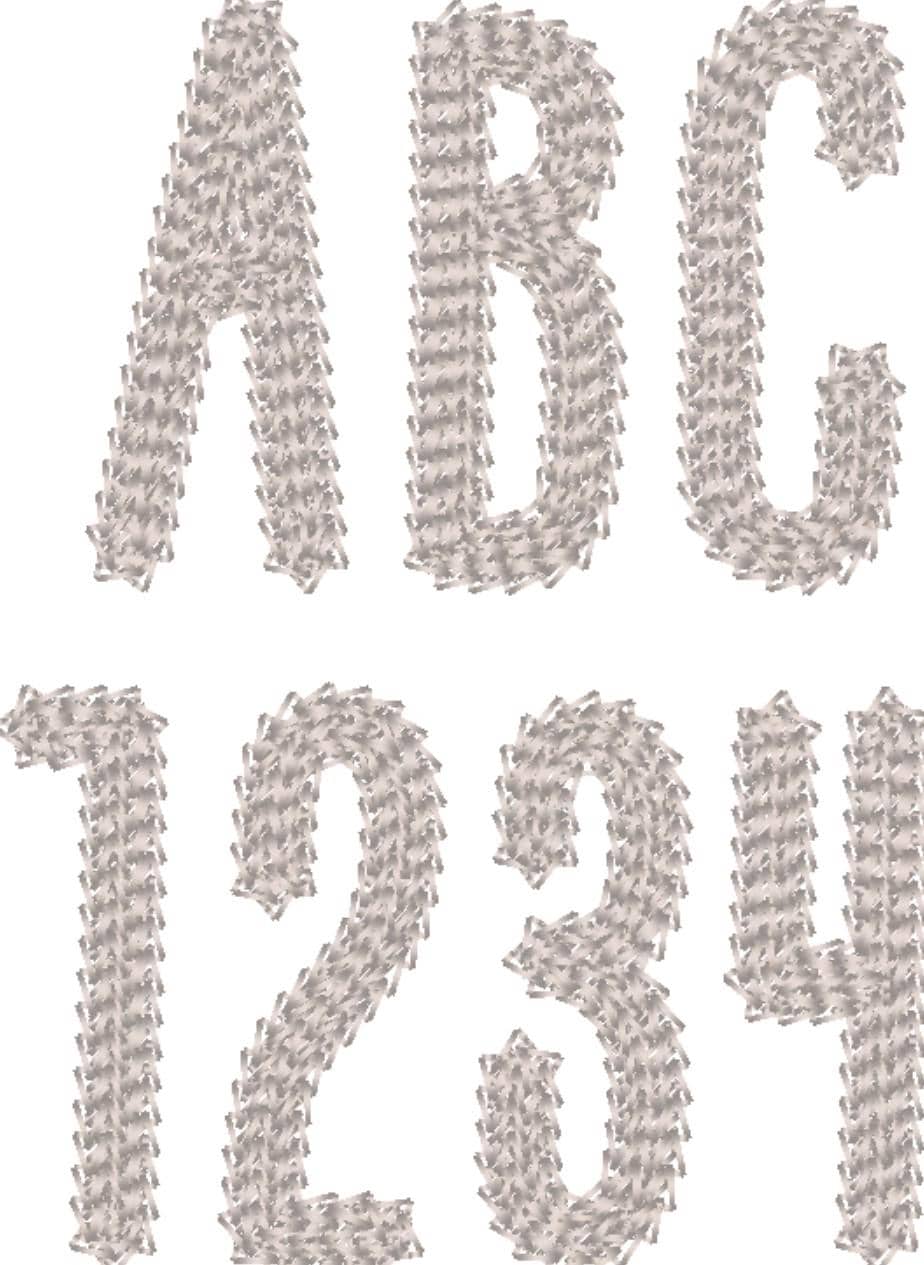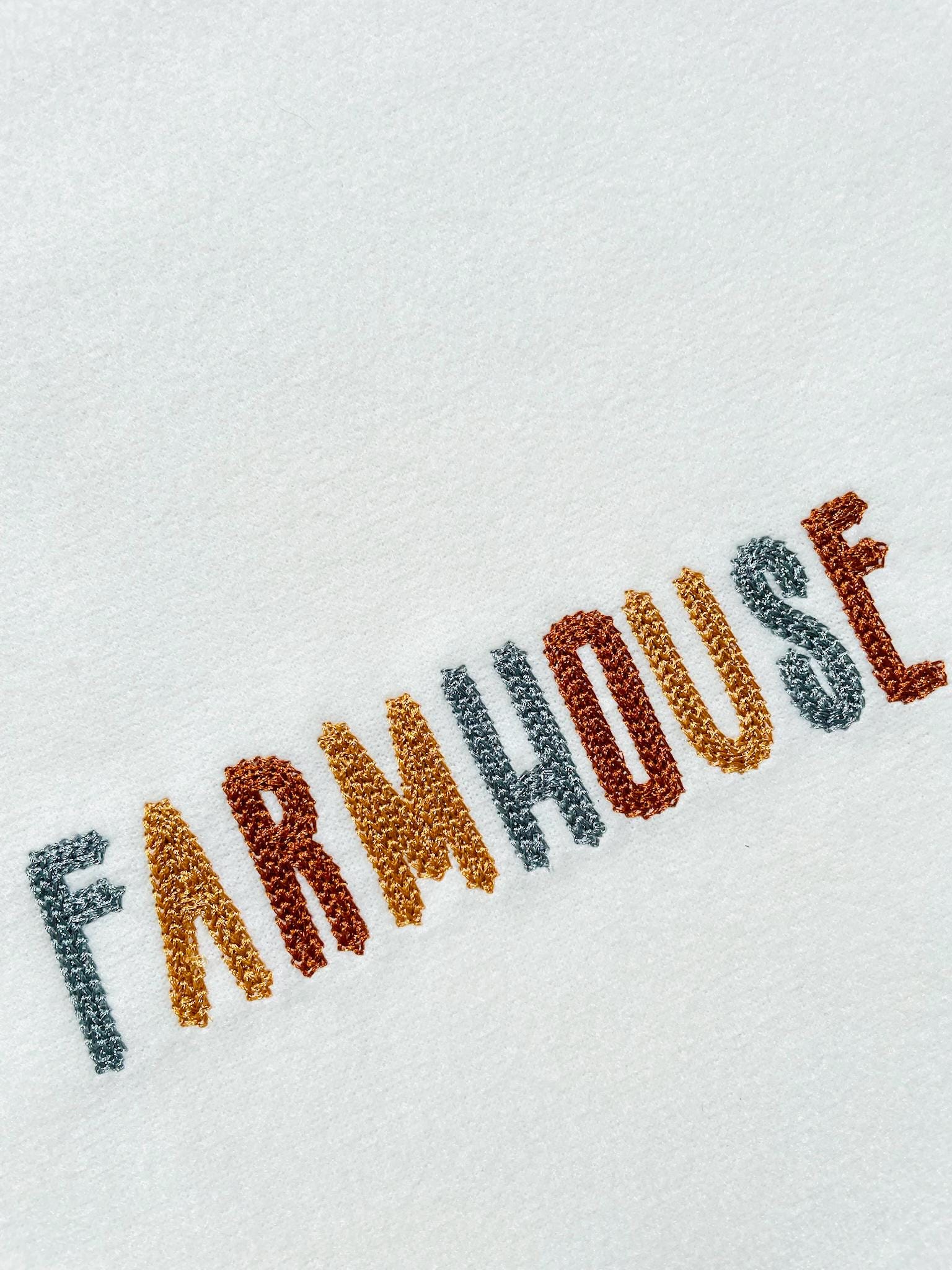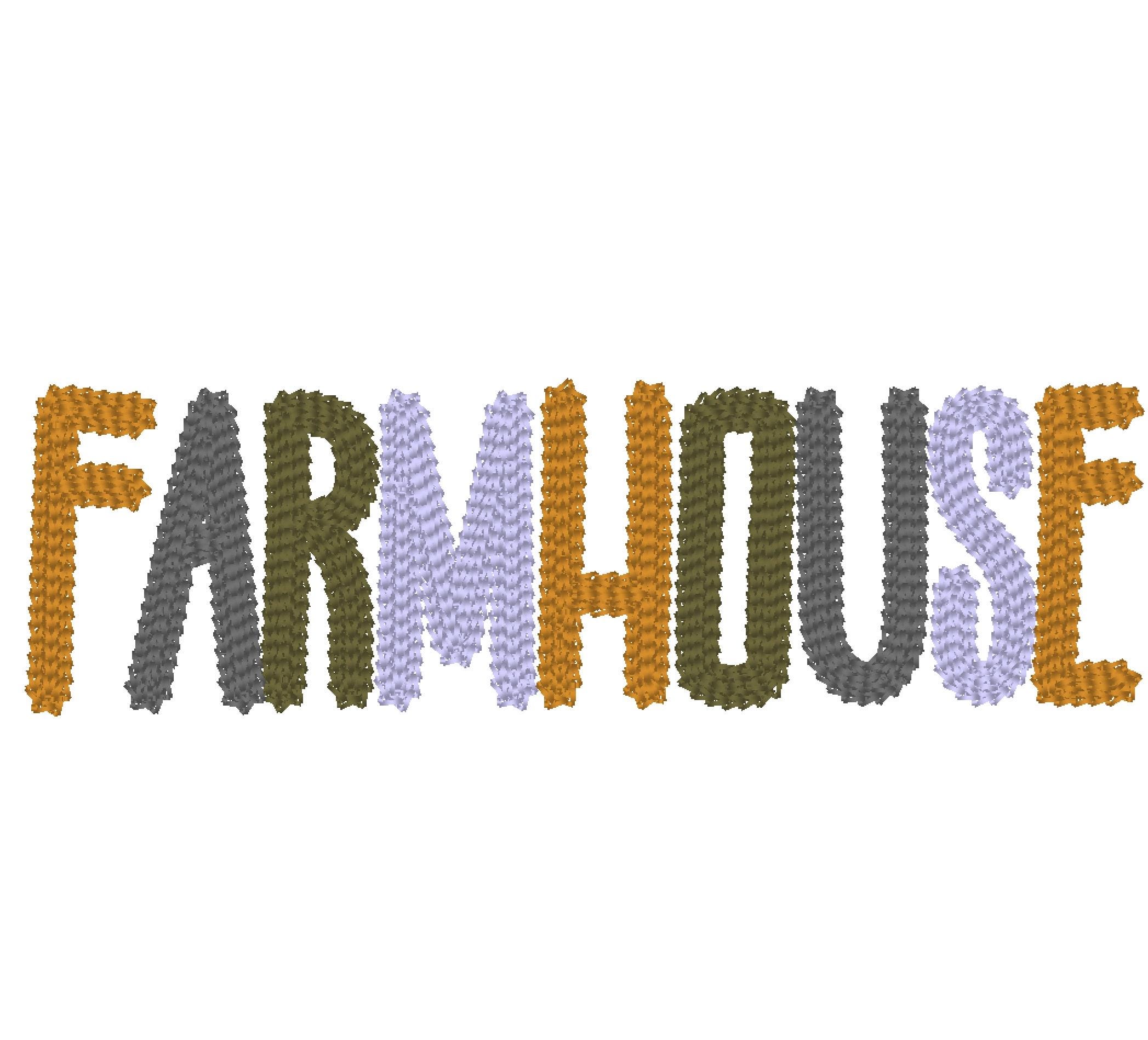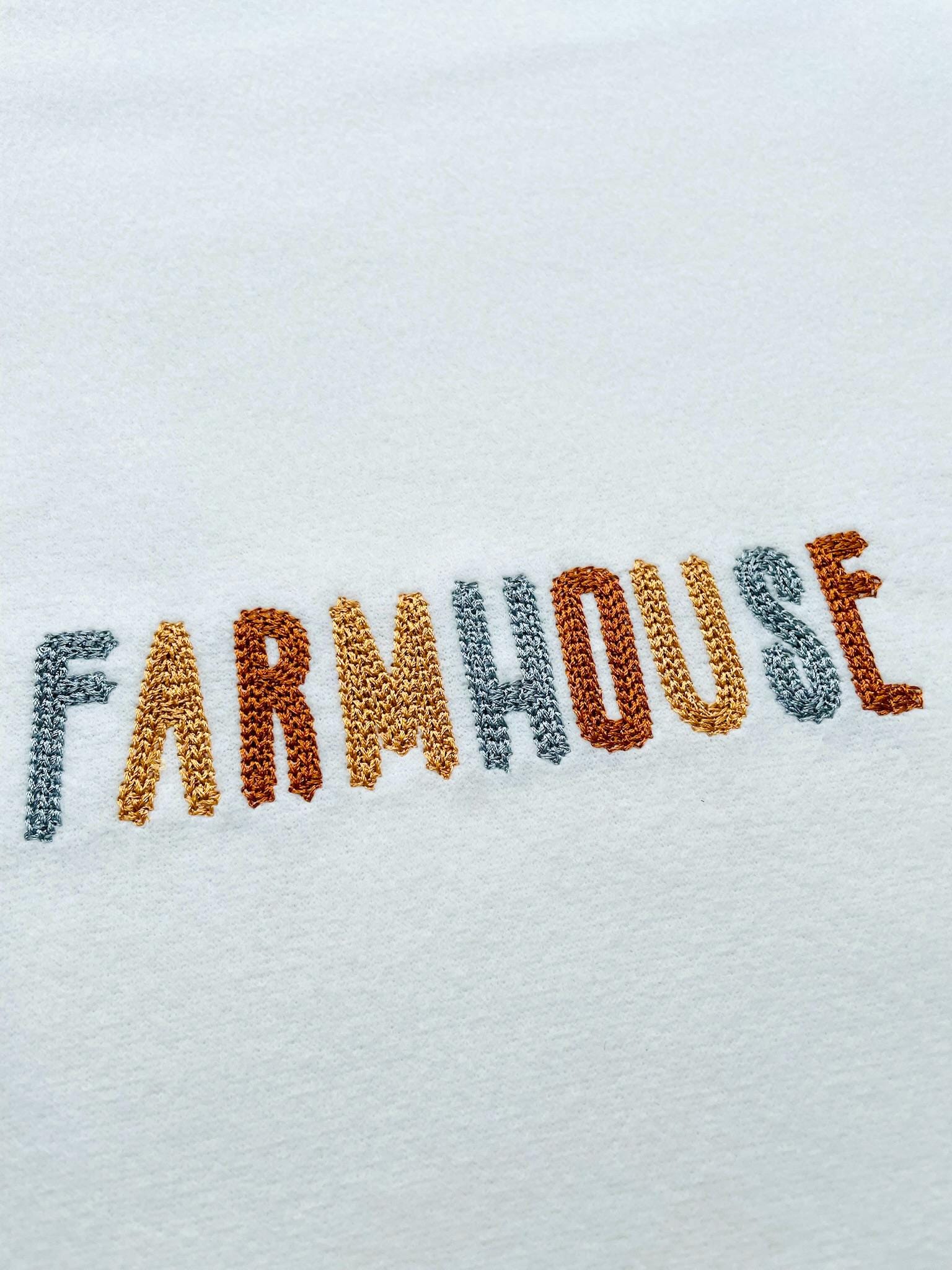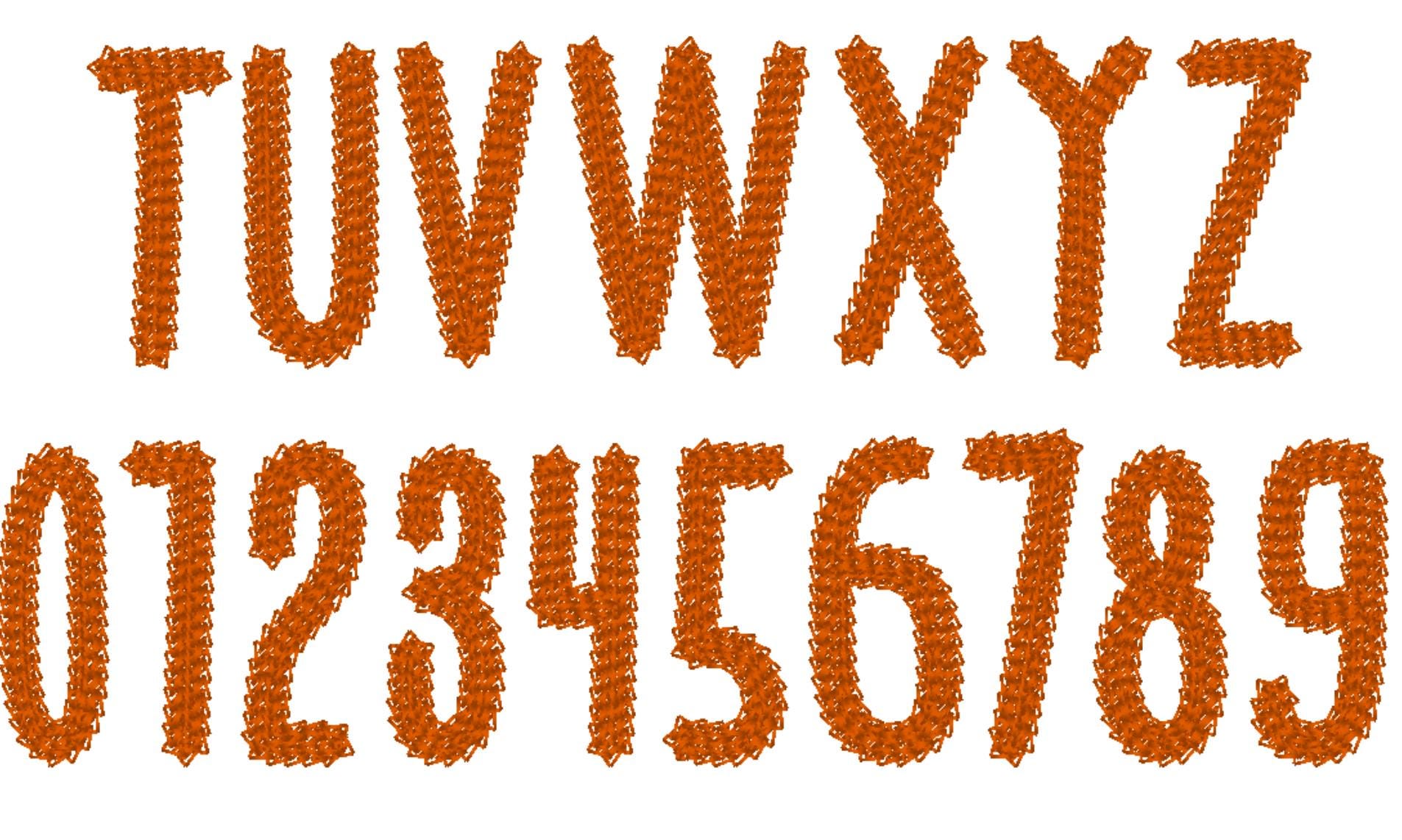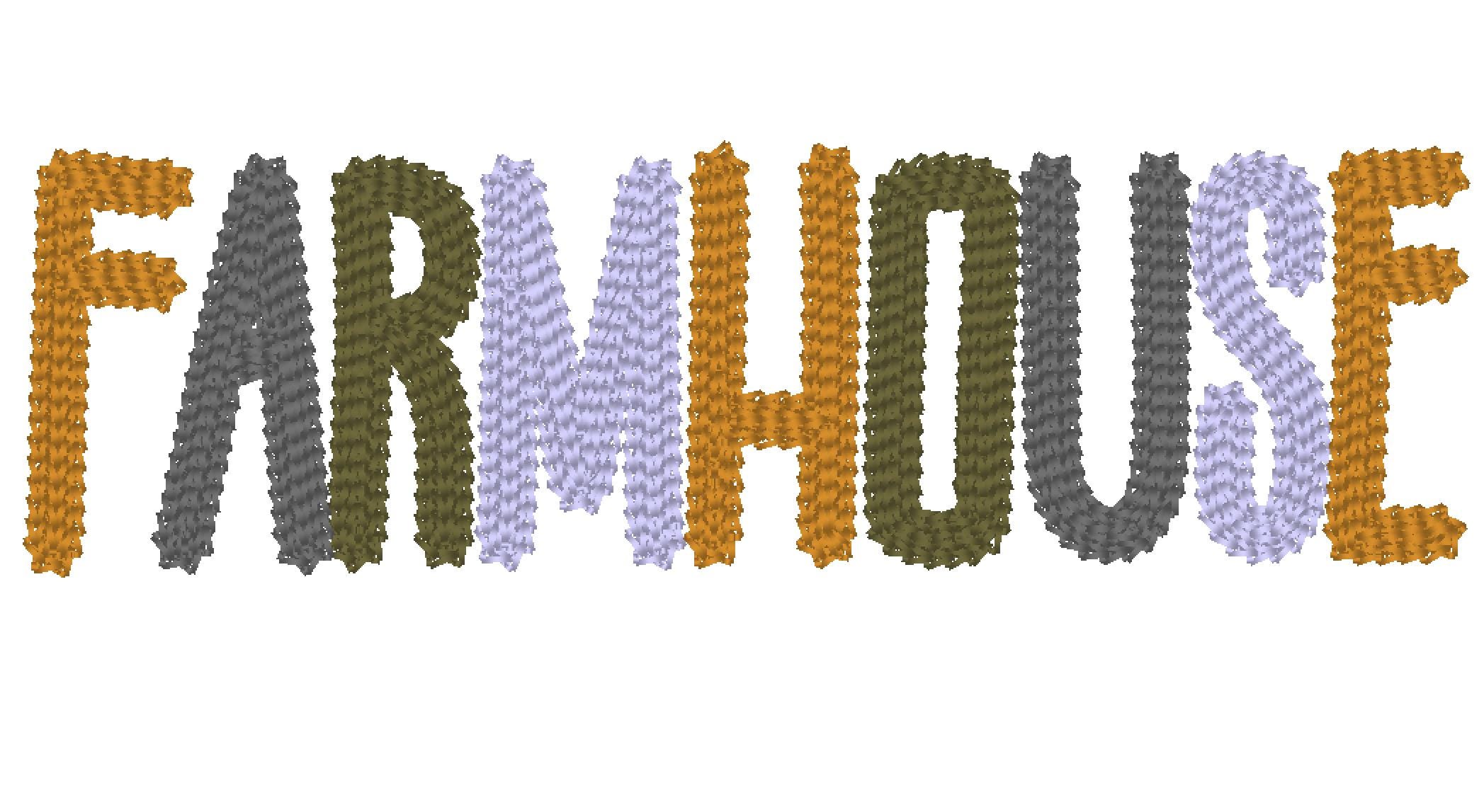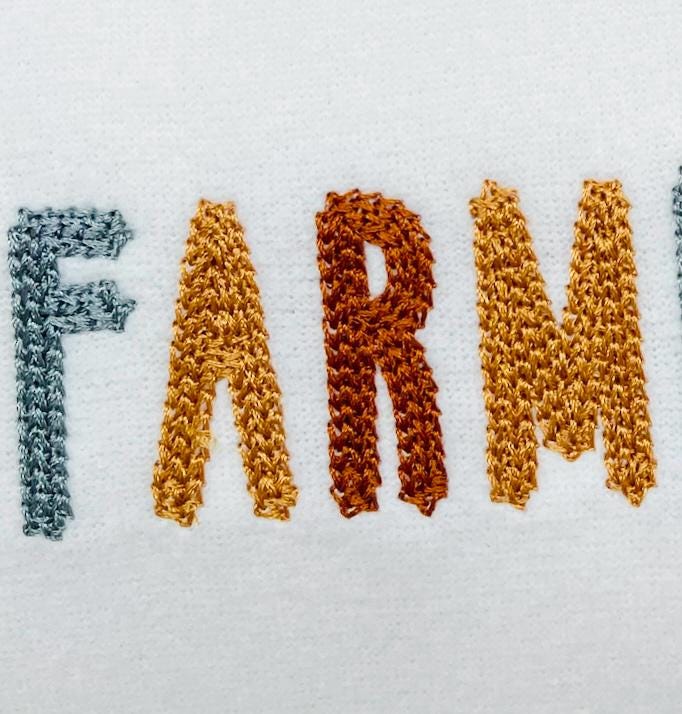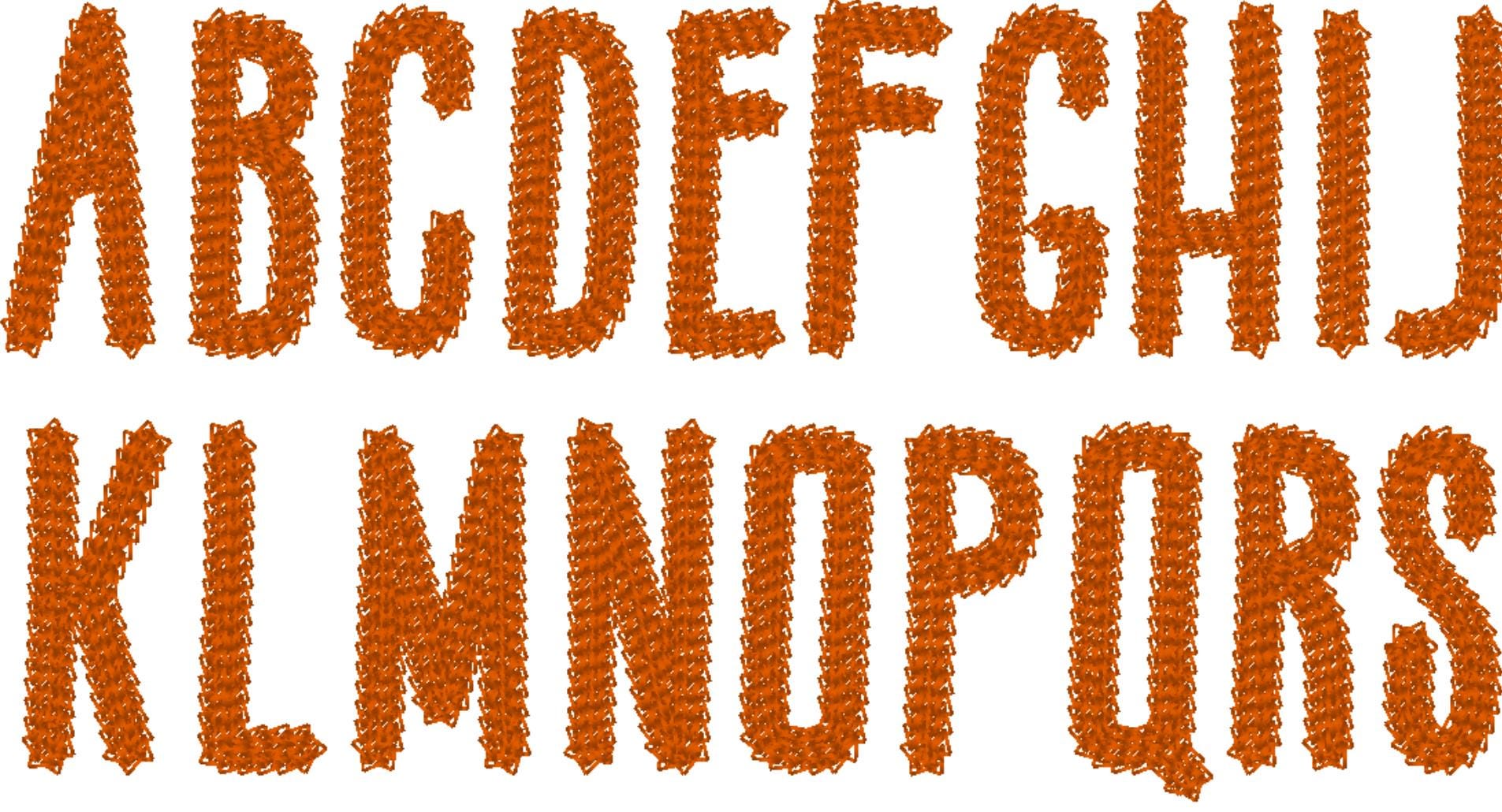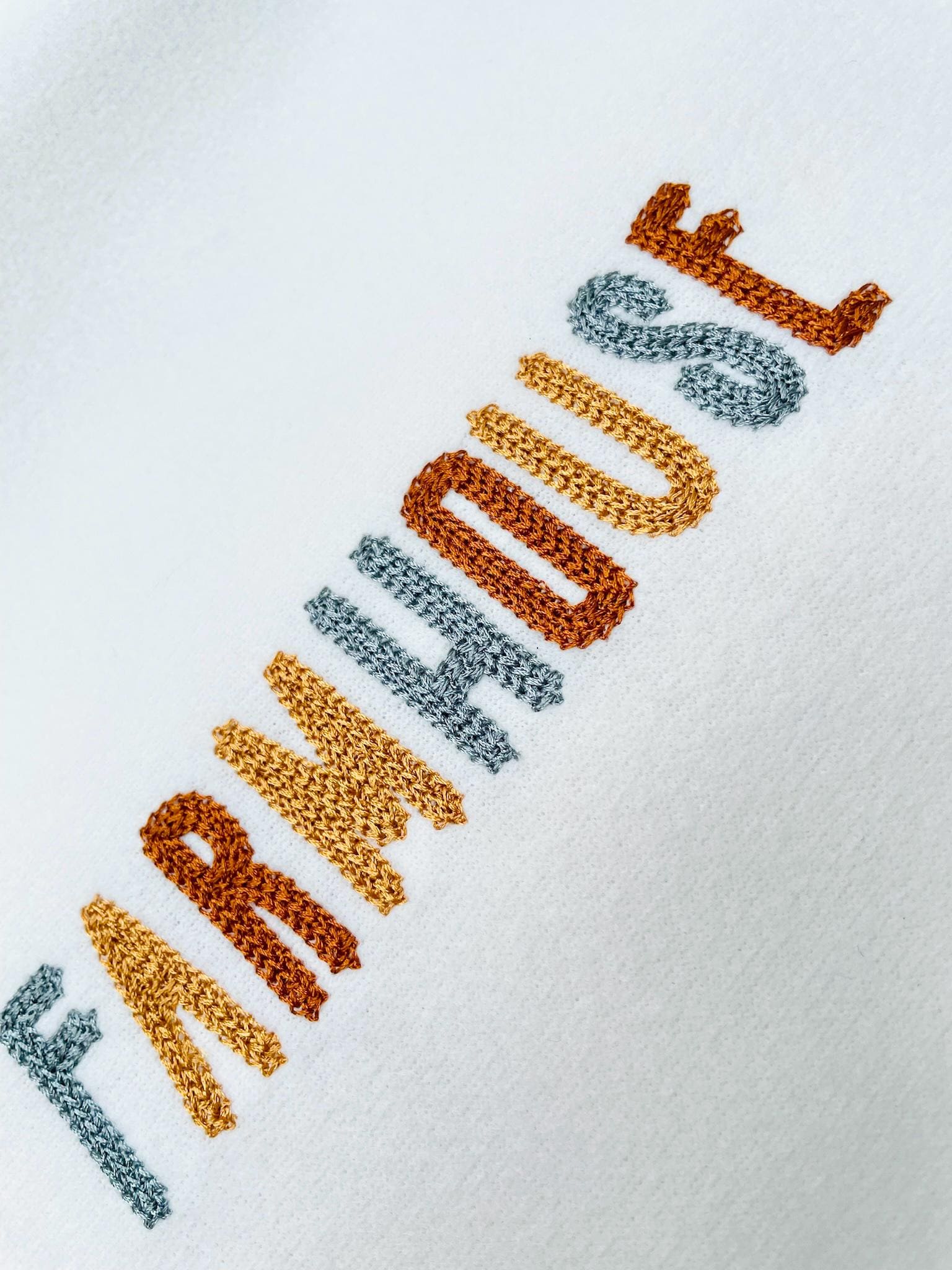
perfect light Mini Chain Font hand stitch effect Chain Block Font machine embroidery designs alphabet letters numbers monogram sizes 1.4 up to 2.5inch, BX included
The whole alphabet A-Z uppercase, numbers 0-9, and ampersand &